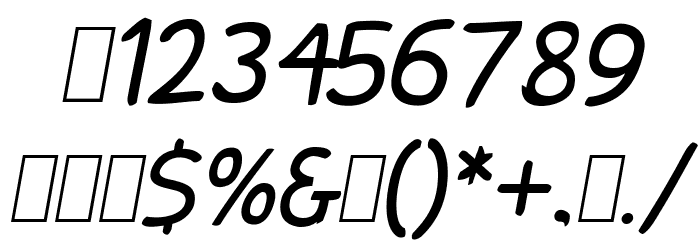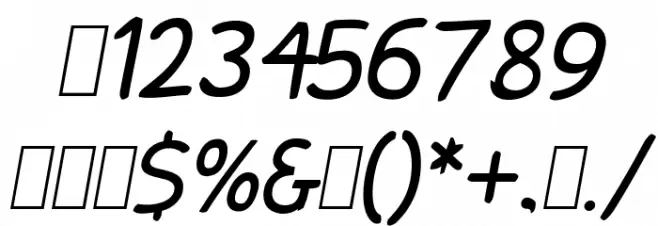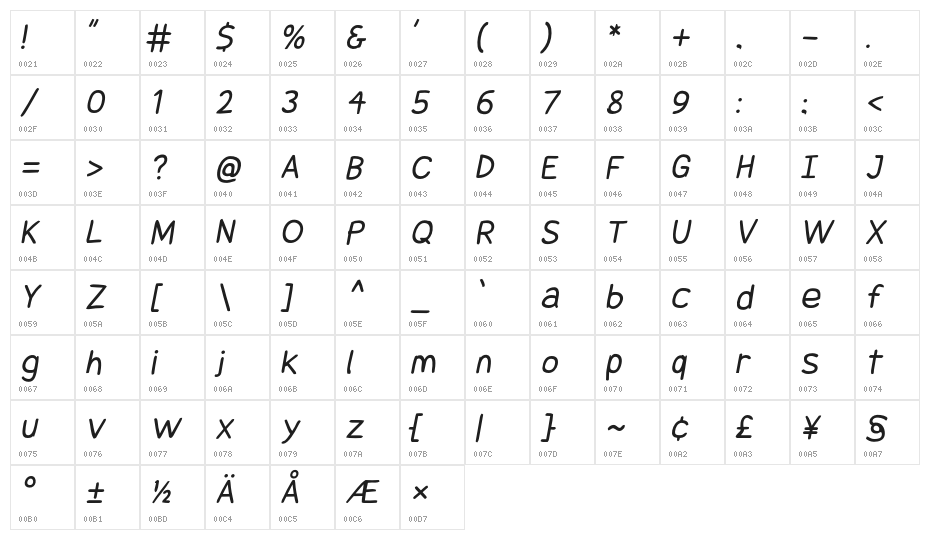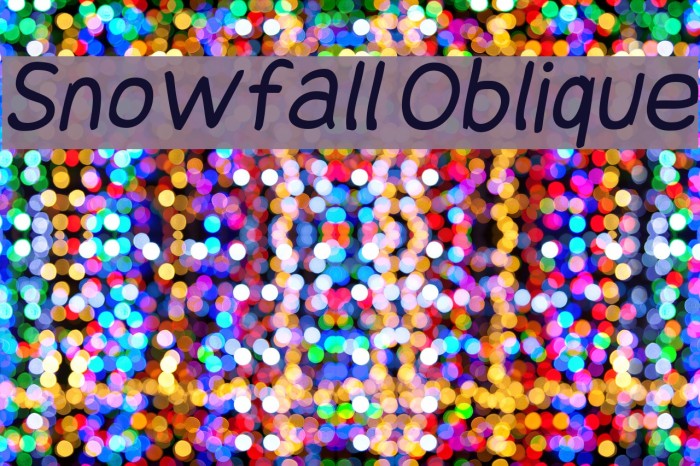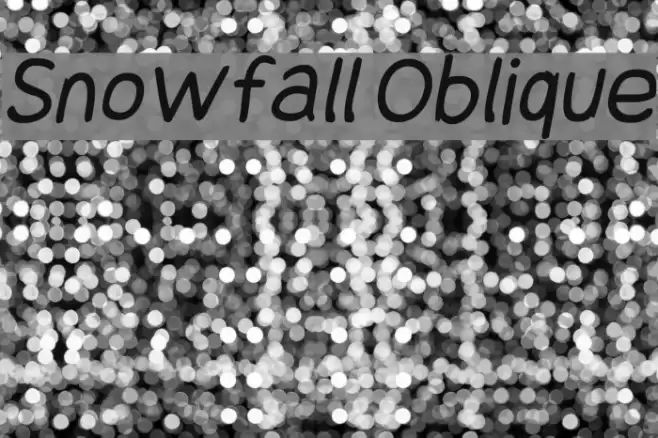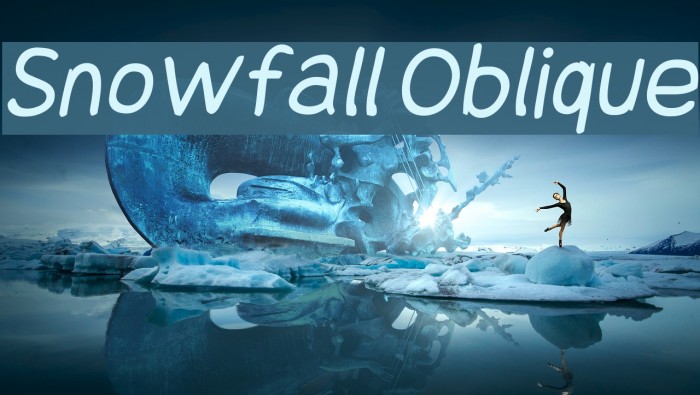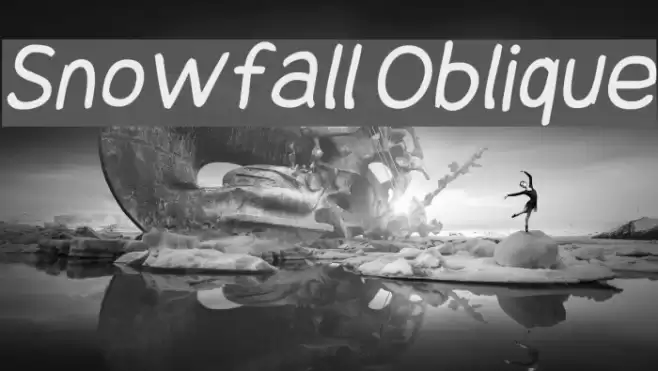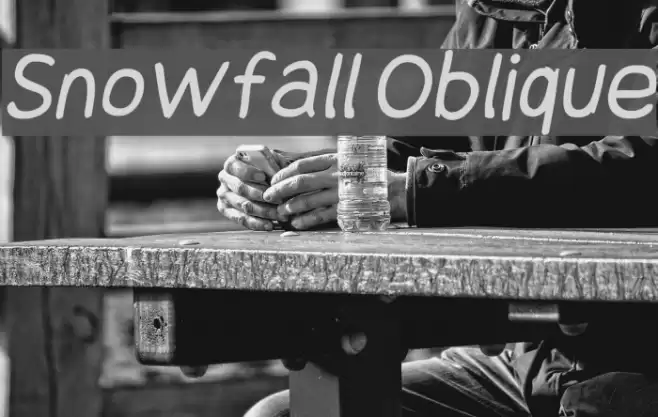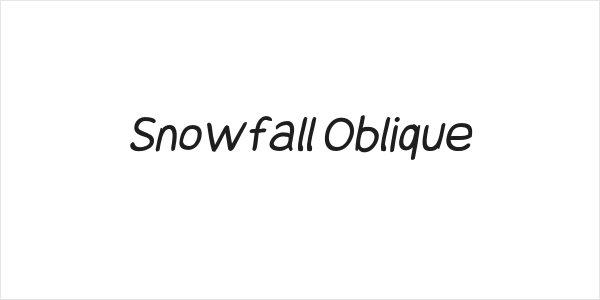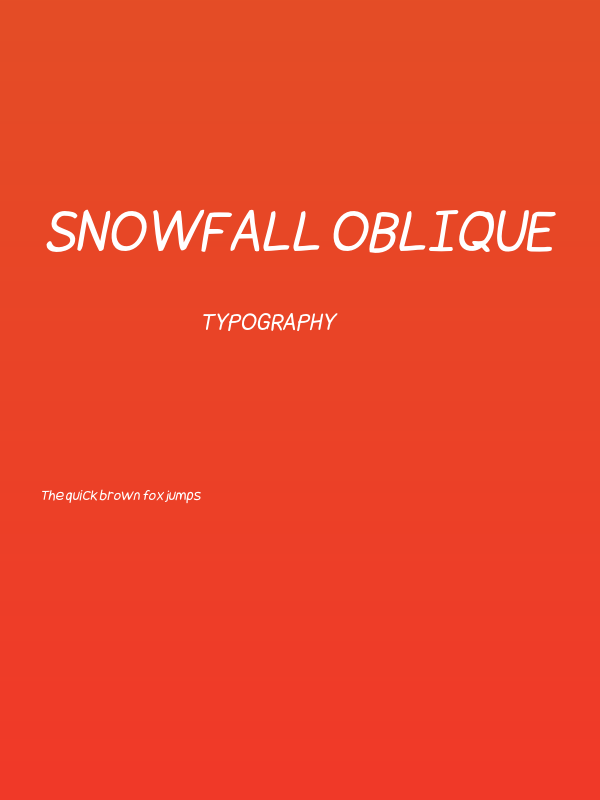
Snowfall Oblique Font
Snowfall Oblique Description
This font features a smooth, flowing design with a slight slant, giving it an oblique appearance. The characters are rounded and have a consistent stroke width, providing a clean and modern look. The uppercase and lowercase letters maintain a harmonious balance, while the numerals and special characters are clearly defined and easy to read. The overall style is approachable and friendly, making it suitable for a variety of applications.
| Proposed Projects | Ideal for branding, advertising, and digital content where a friendly and modern appearance is desired. |